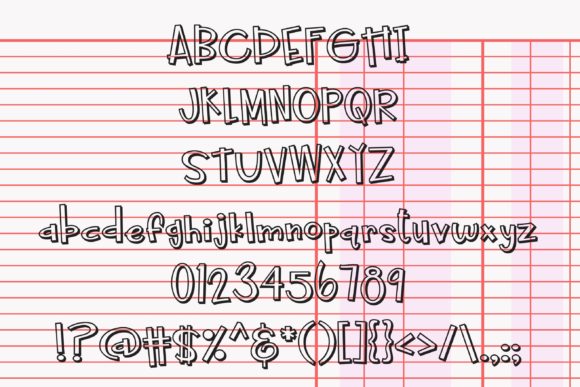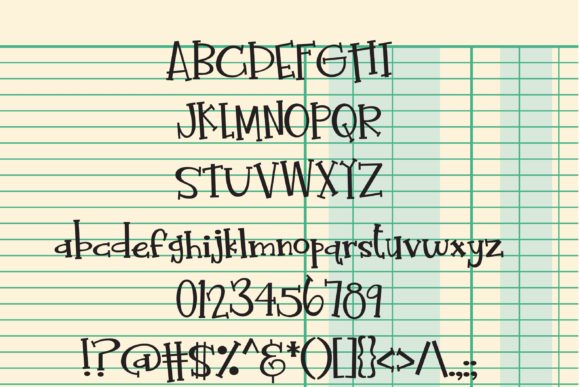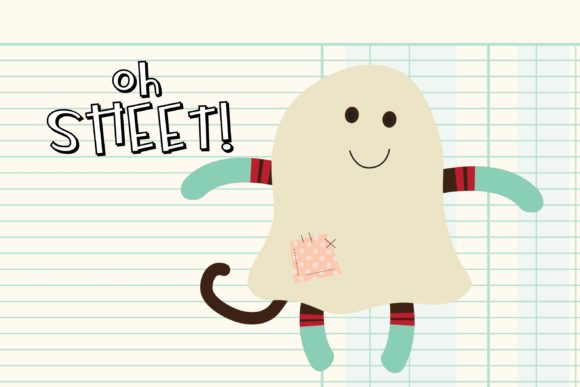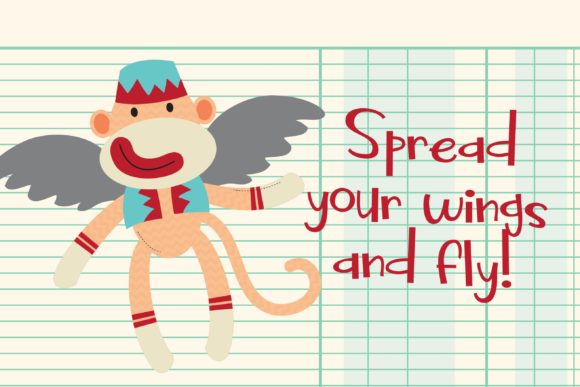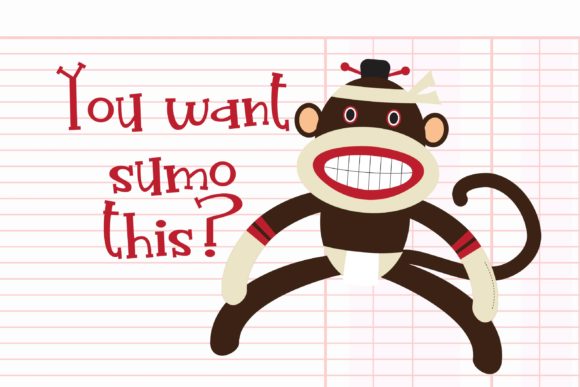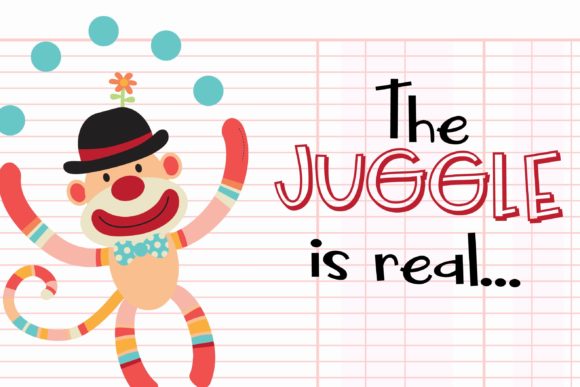
Introduction to Koalition Family Font
Koalition is a whimsical and dynamic script family featuring quirky fonts.
They will take any DIY project to the highest level .
Key Features of Koalition Family Font
Why Choose Koalition Family Font?